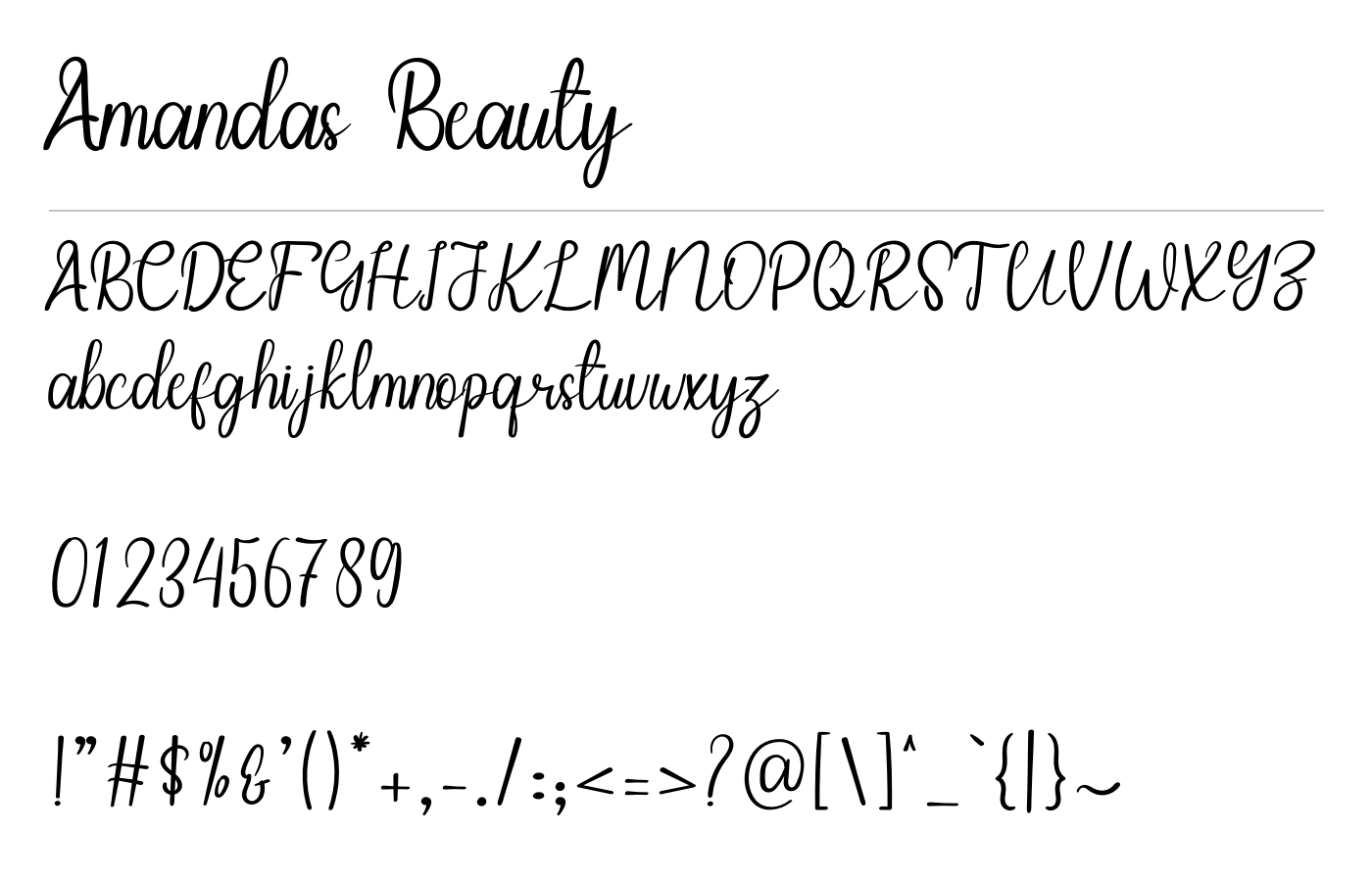
Amandas Beauty is a delicate and elegant script font characterized by its tall, slender letterforms and smooth, flowing curves. With a light weight and high x-height, it offers a graceful yet readable style, perfect for adding a personal, feminine touch to branding, invitations, or beauty and fashion projects. Its refined, handwritten feel communicates warmth and sophistication, making it ideal for headlines and decorative uses where a stylish, approachable look is desired.
Amandas Beauty Font
About Amandas Beauty Font